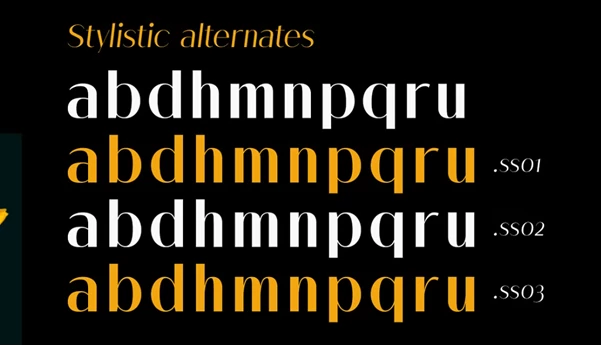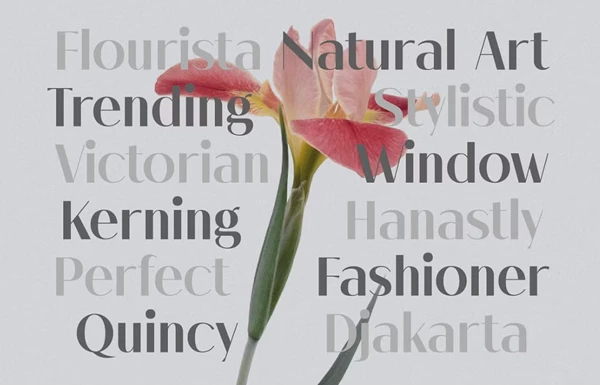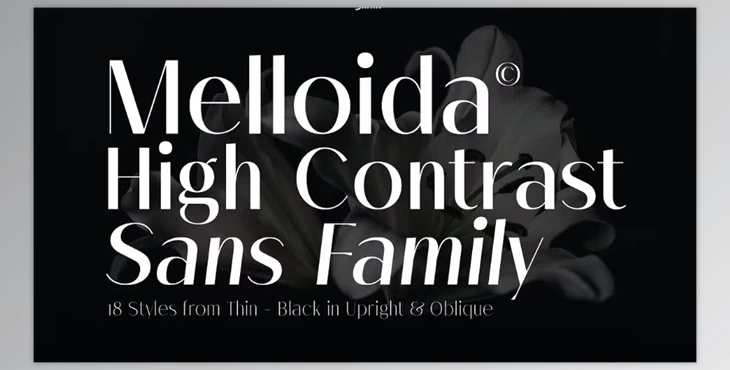
Melloida Font Family:
The Melloida font family is made up of modern high-contrast sans serif typefaces with an everlasting classic touch. These fonts are very versatile as they can be used for clean and elegant branding and even on websites. Melloida will always remain a balance between style and utility, whether it is used for an alluring corporate identity or a captivating digital presence.
Some great features of Melloida Font Family:
- Accommodates 18 Styles
- Upright & Oblique options
- A total of 506 Glyphs
- Supports Over 270 Languages